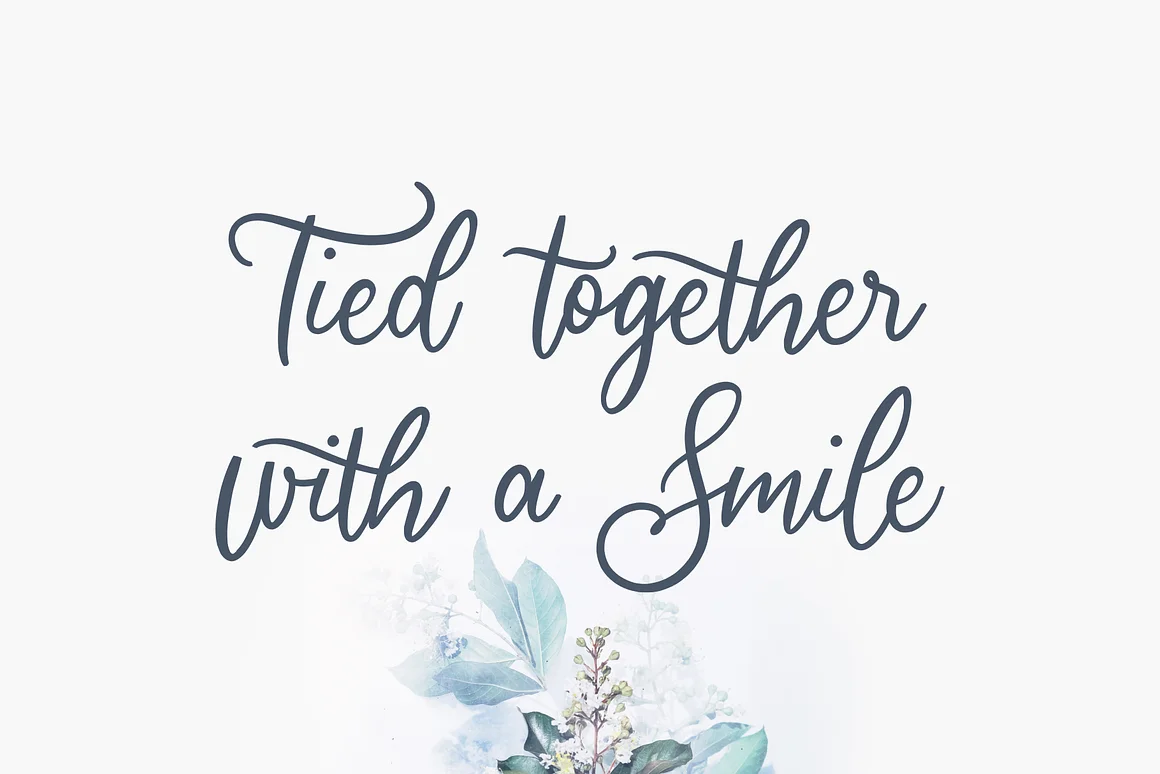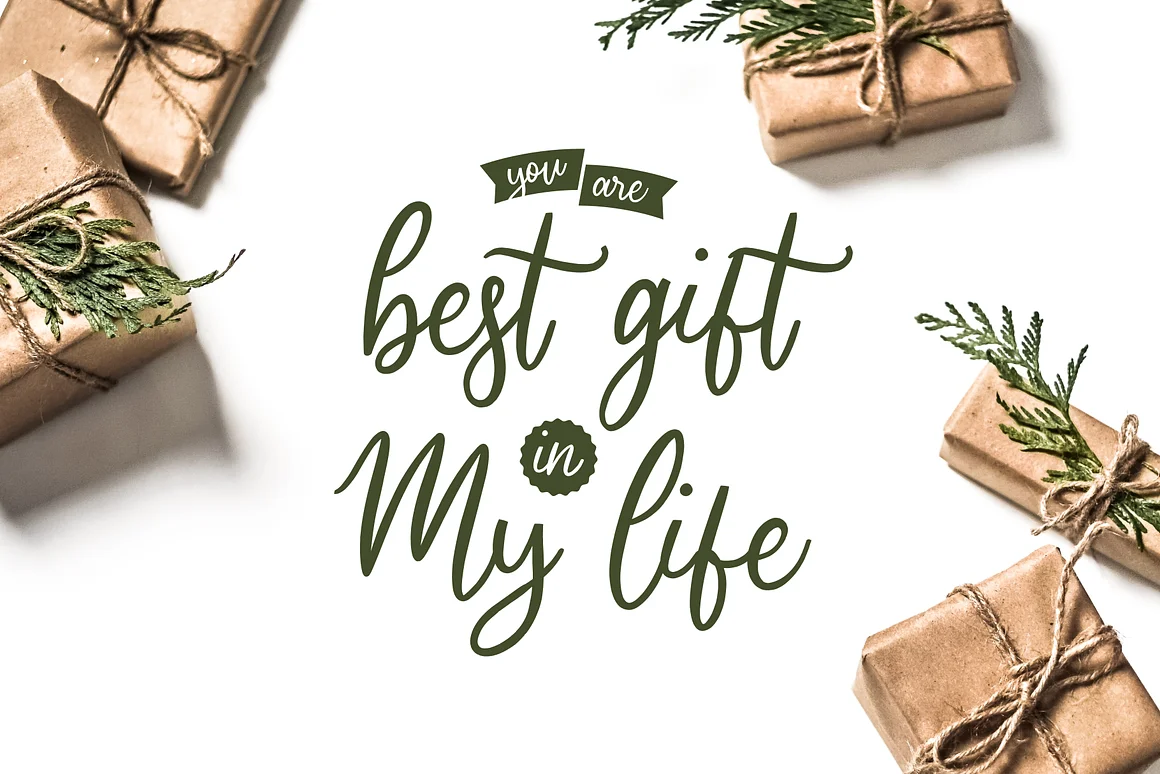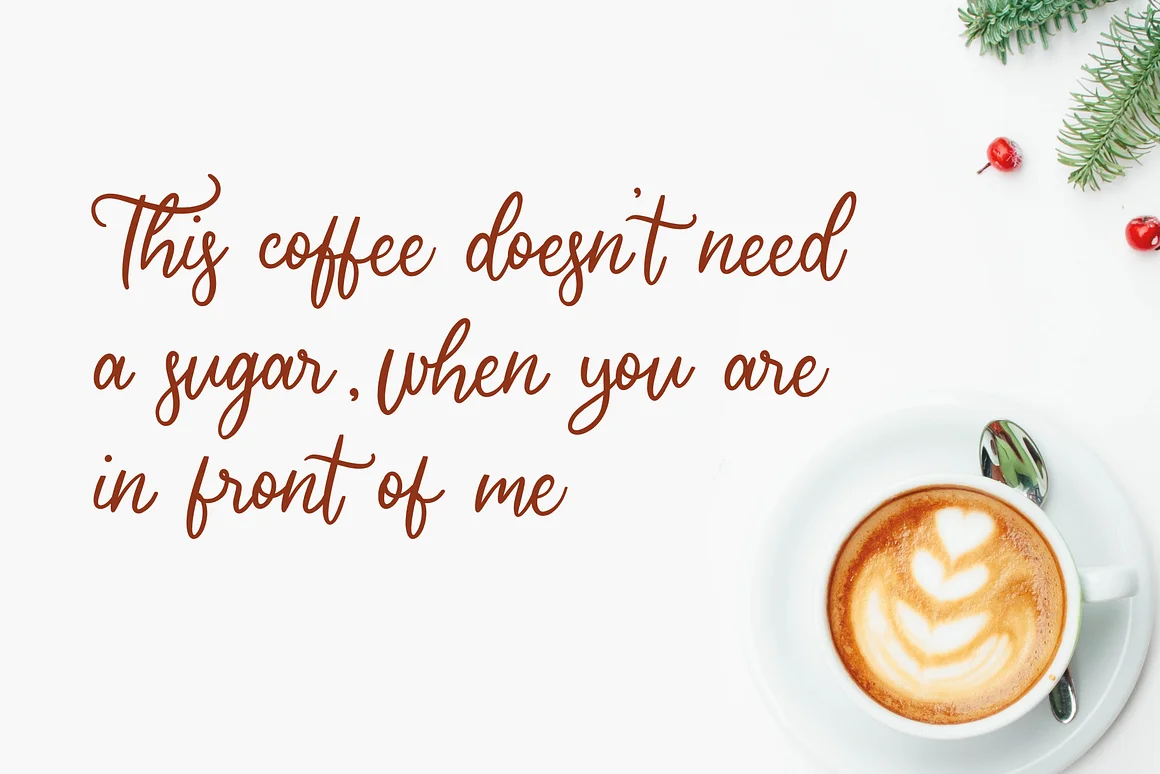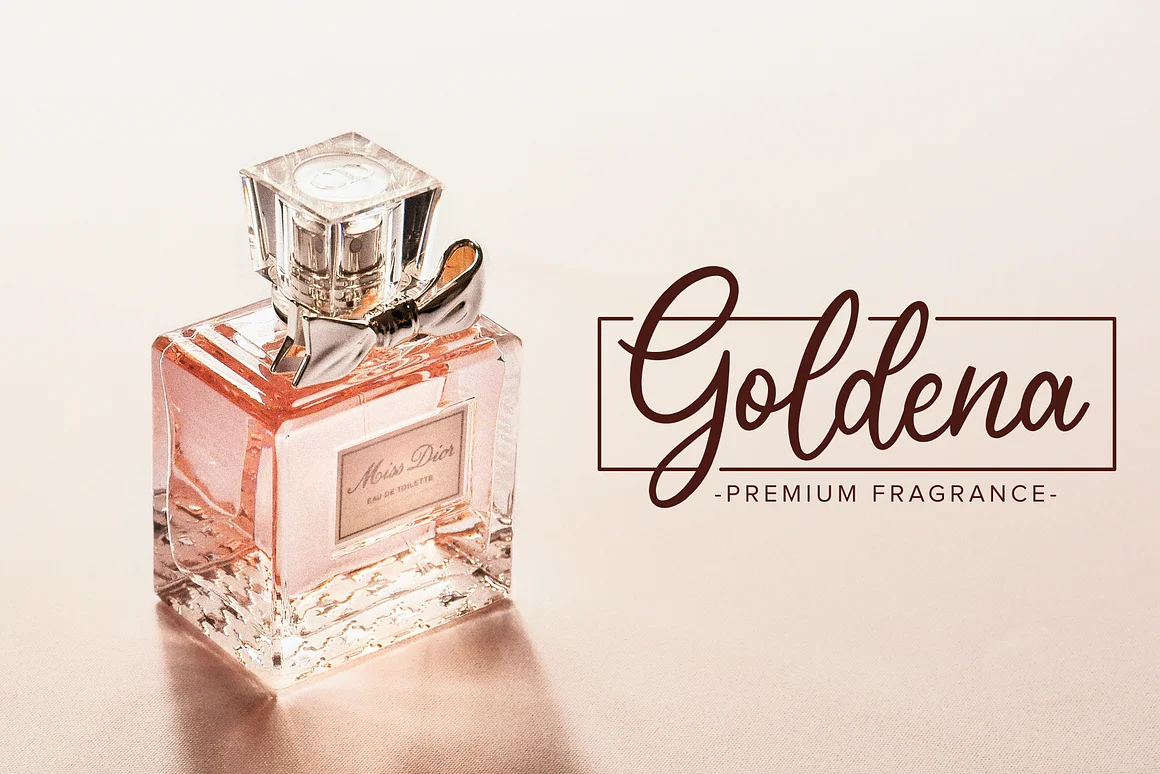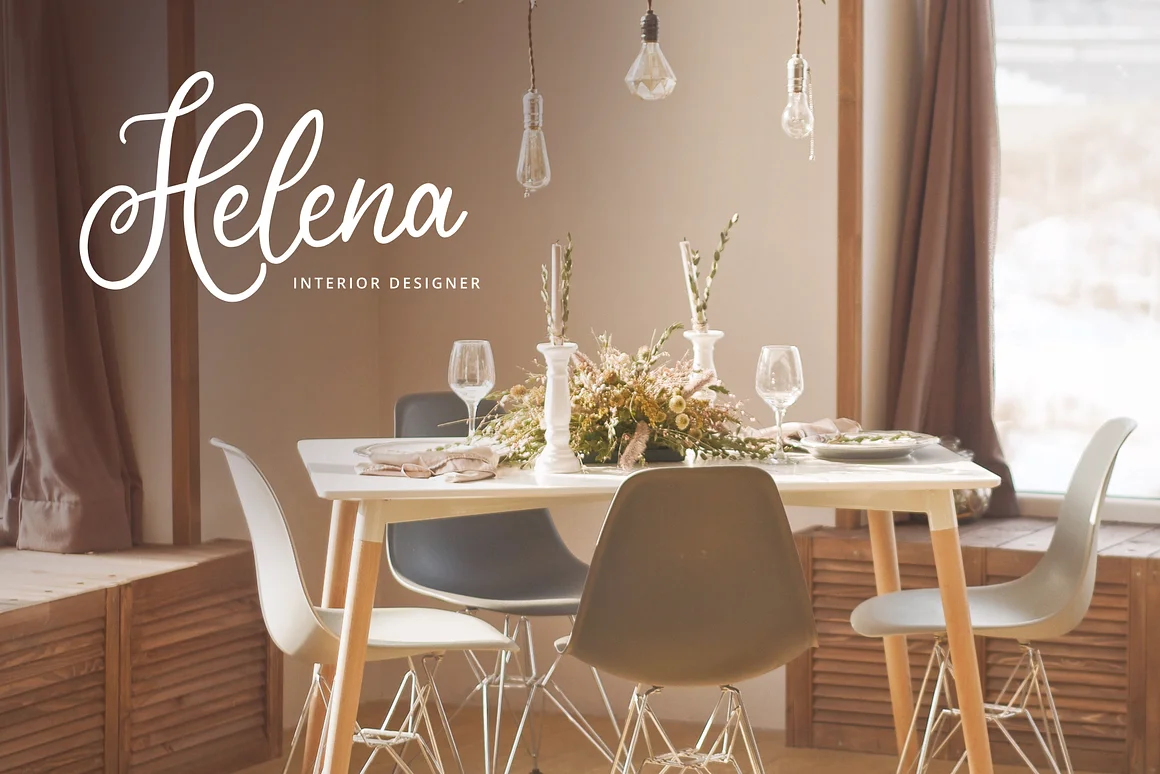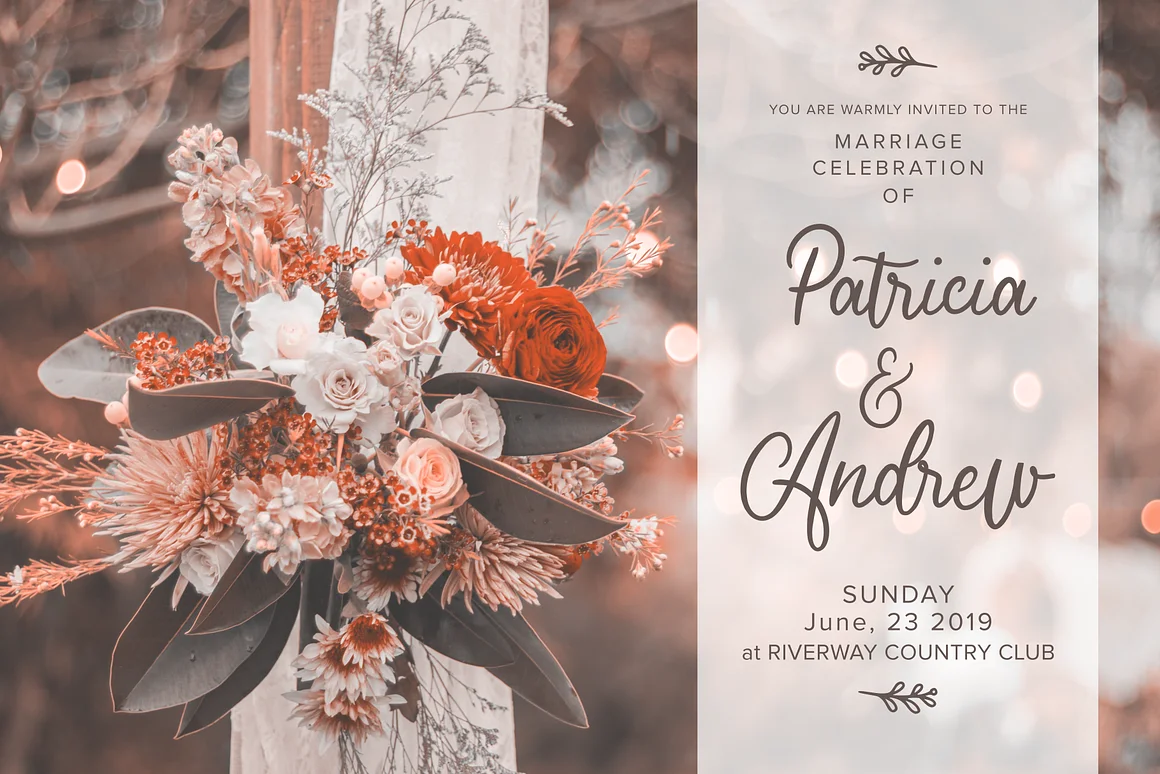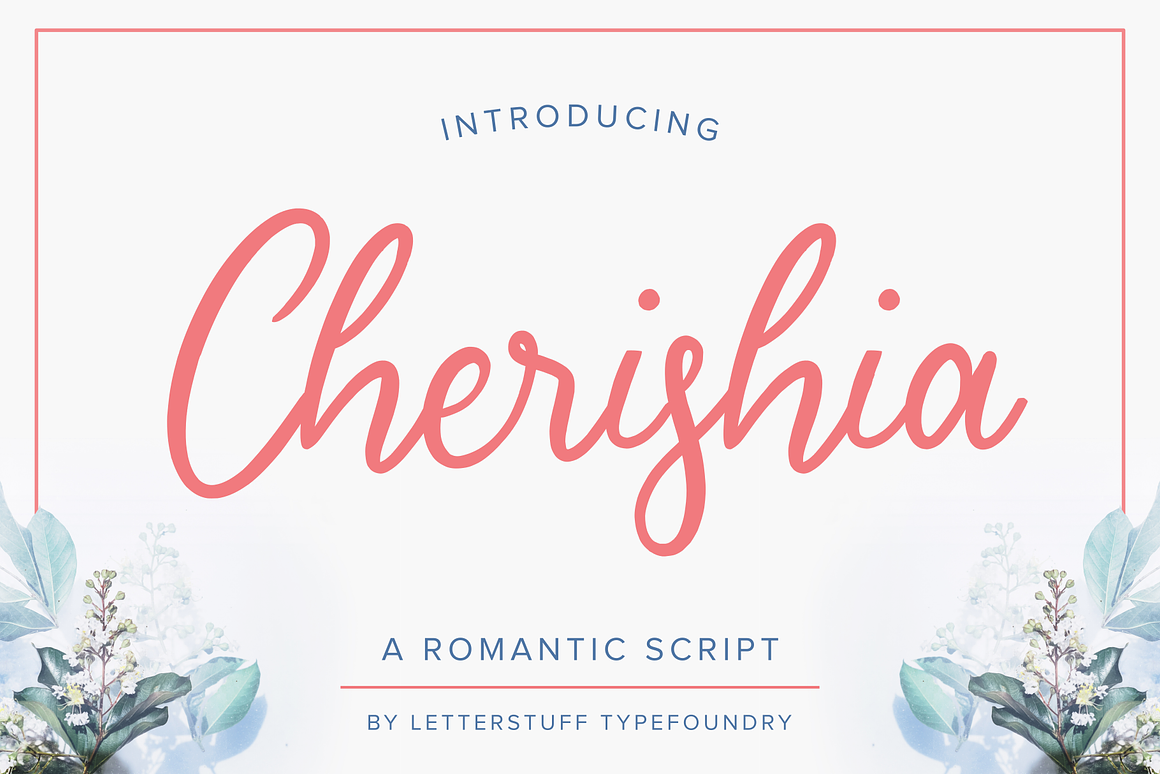
Cherishia | Romantic Script Font
Typography shapes perception at a subconscious level. Cherishia | Romantic Script leverages controlled contrast that rewards close inspection to make every composition feel considered. The typeface brings an elegant, calligraphic sensibility to a broad range of creative disciplines, with versatility across print and screen contexts that holds up whether the work is print-first or screen-first.
In practice, Cherishia | Romantic Script proves particularly effective for logo design, annual reports, signage systems, web design, advertising campaigns. Designers reaching for it find that the type decisions feel resolved rather than laboured — a useful quality when client timelines are tight.
The range of applications extends to product labels, editorial layouts, perfume labels, poster creation. That breadth is deliberate: the proportions and spacing were stress-tested across a wide range of mock briefs before the typeface was finalised.
Cherishia | Romantic Script sits comfortably alongside both classic and contemporary typefaces in multi-font hierarchies. It takes direction rather than competing for attention — a quality that experienced designers know is harder to find than it appears.
In-house creative teams at consumer brands find Cherishia | Romantic Script a reliable choice for projects that demand both personality and restraint. The design avoids the self-conscious quirkiness that dates quickly, settling instead for considered distinctiveness that holds up over time.